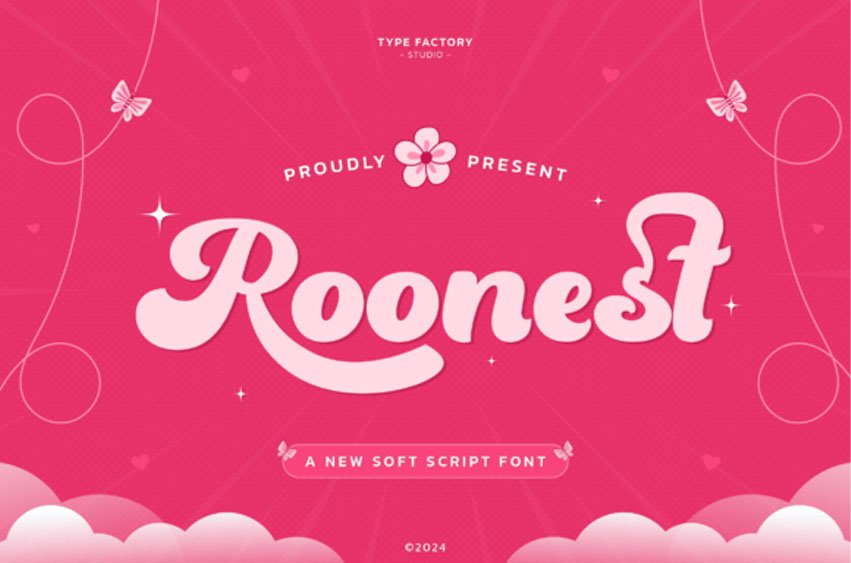
Roonest Font is a soft script typeface featuring rounded letterforms, smooth curves, and connected strokes that create a friendly and approachable look. Designed with playful swashes and balanced proportions, this typeface includes uppercase, lowercase, numerals, punctuation, ligatures, stylistic alternates, and multilingual support.
The flowing baseline and gentle stroke contrast make Roonest suitable for branding, product packaging, social media graphics, invitations, quotes, and headline compositions. Its warm character and smooth rhythm allow it to work well across lifestyle, beauty, fashion, and creative design projects.
Roonest maintains readability while preserving the expressive charm of a modern soft script style.